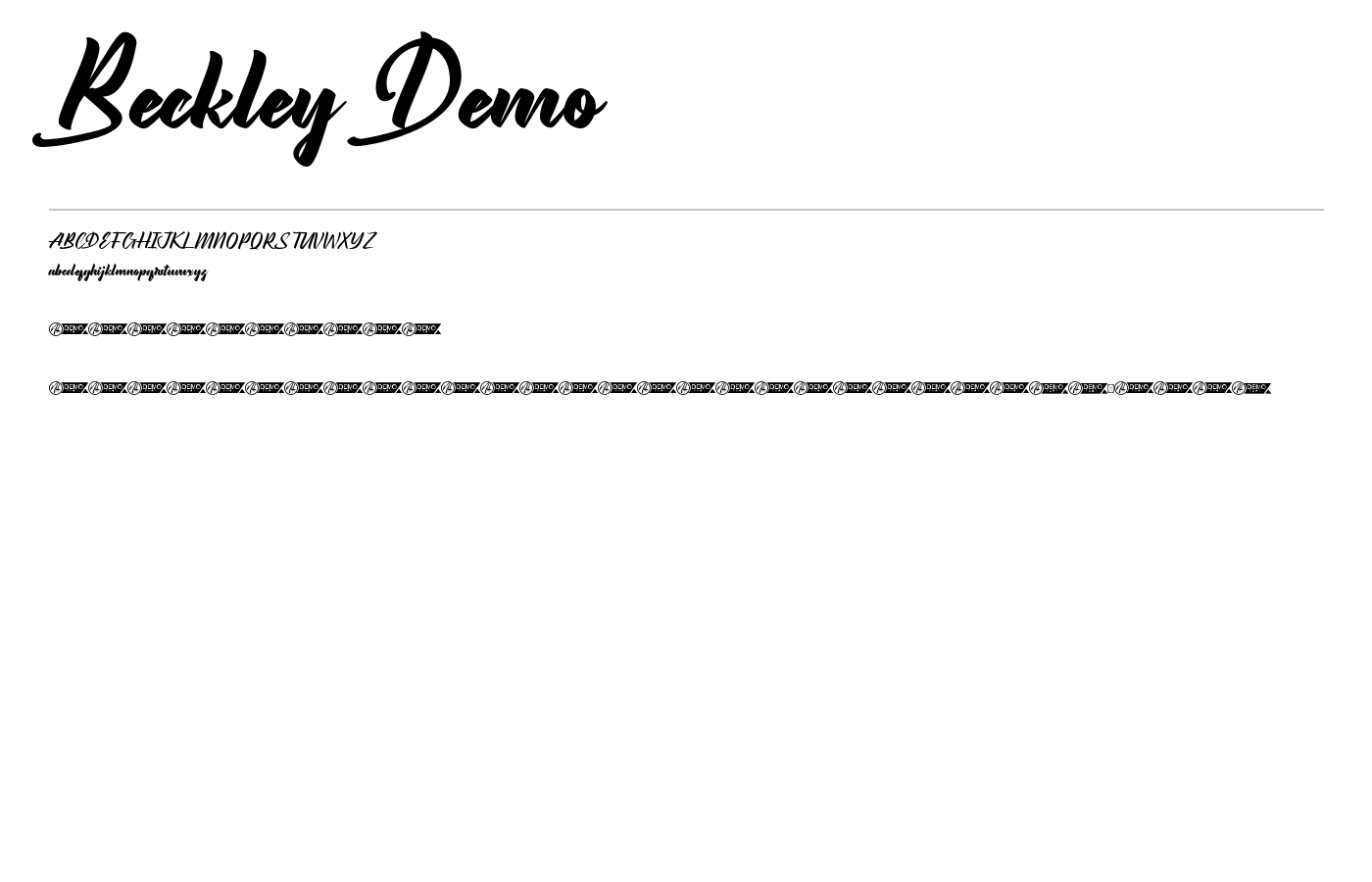
Beckley Demo is a bold, flowing script font with a modern calligraphic style that combines elegance and energy. Its smooth, connected letterforms and high-contrast strokes give it a lively yet sophisticated feel, making it perfect for branding, invitations, and eye-catching headlines where a personal, stylish touch is needed. This font works well in creative and fashion contexts, adding a sense of charm and dynamic flair.
Beckley Demo Font
About Beckley Demo Font
| Font family | Beckley Demo Font |